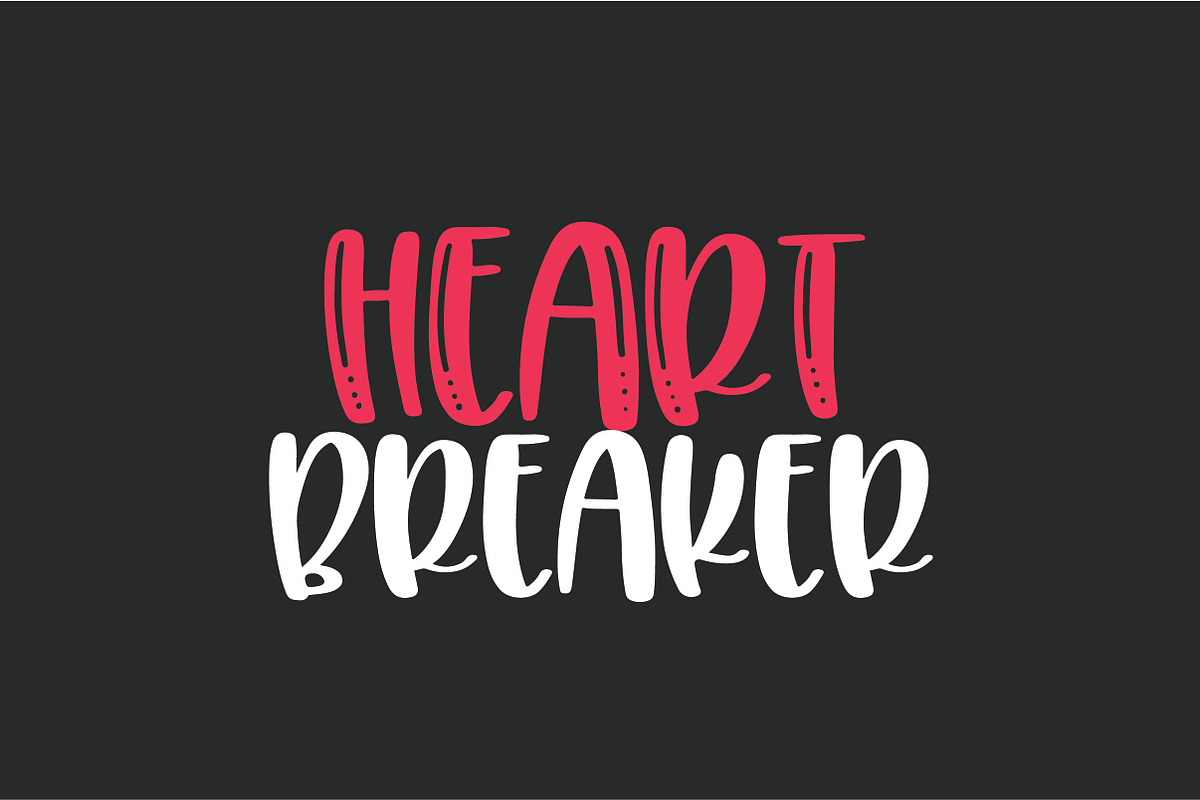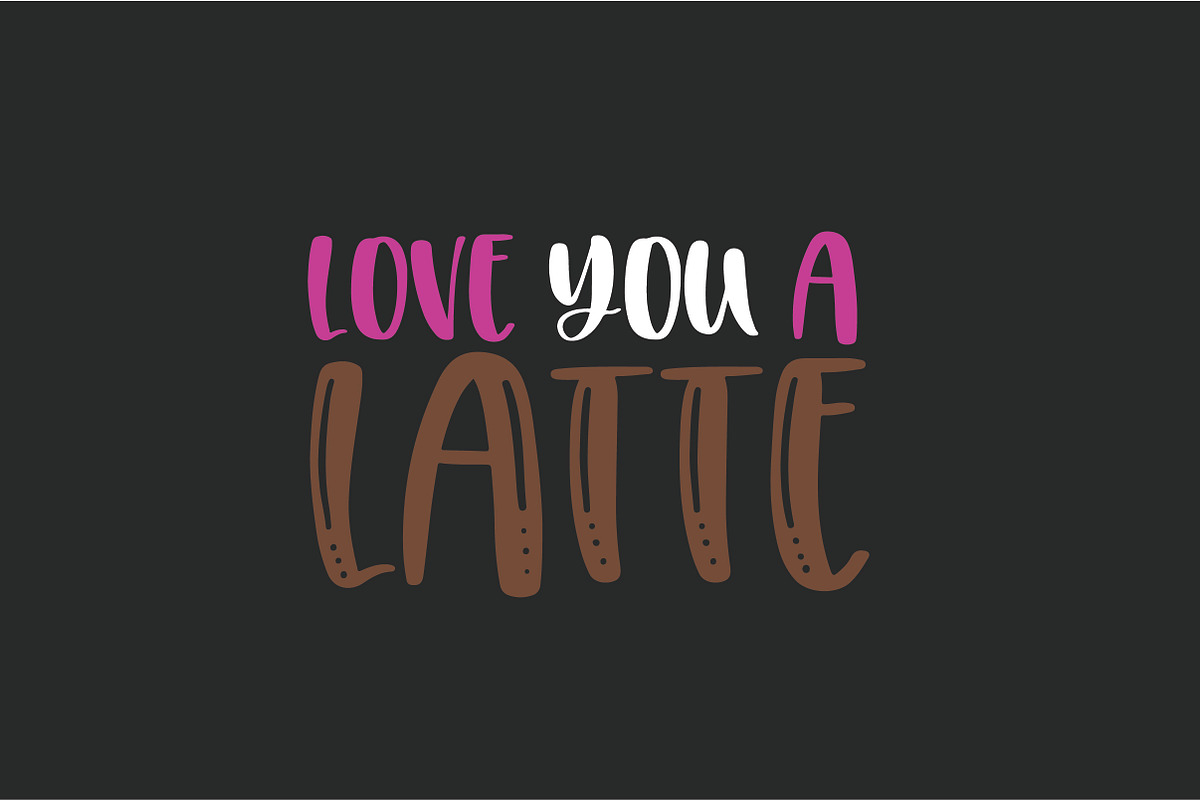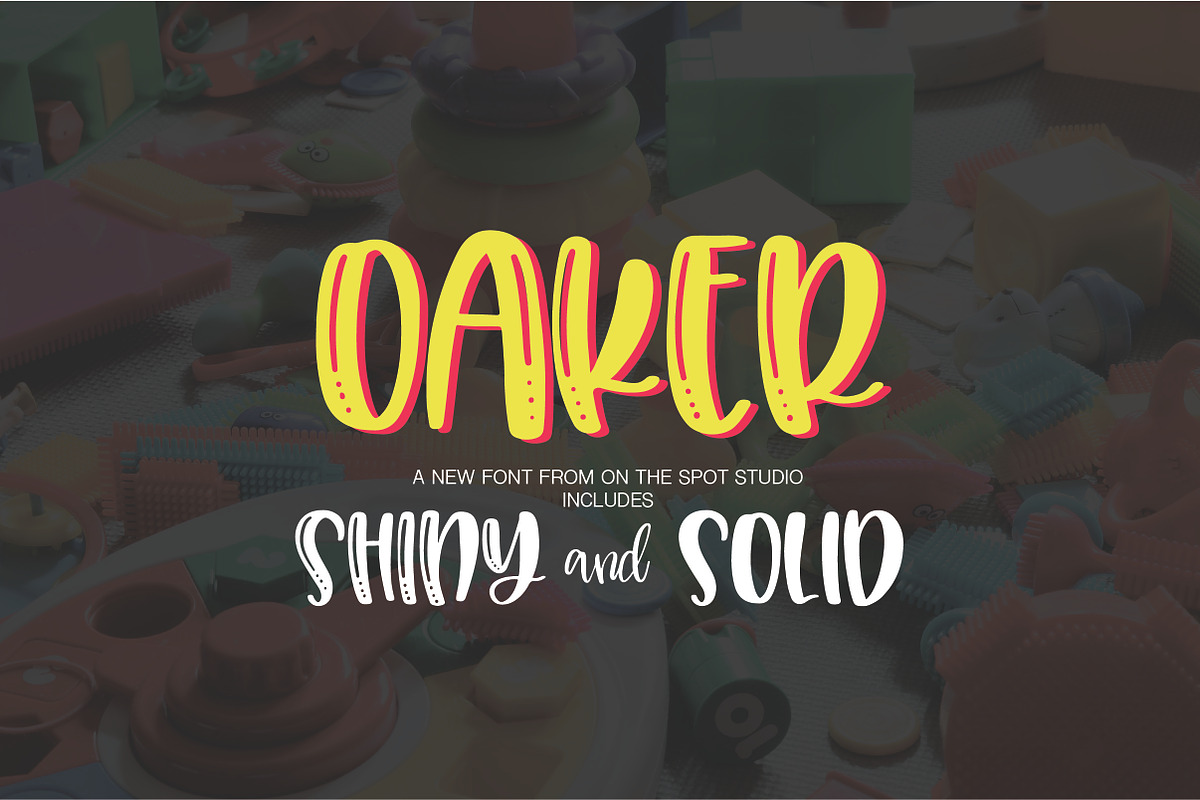
Oaker Font Duo
Introducing Oaker! A fun font duo including both shiny and solid letters! PERFECT for crafting, using cutting machines such as silhouette or cricut, sublimation and more!
Oaker Font Duo by OnTheSpotStudio fits naturally into Branding, posters, packaging, typography.